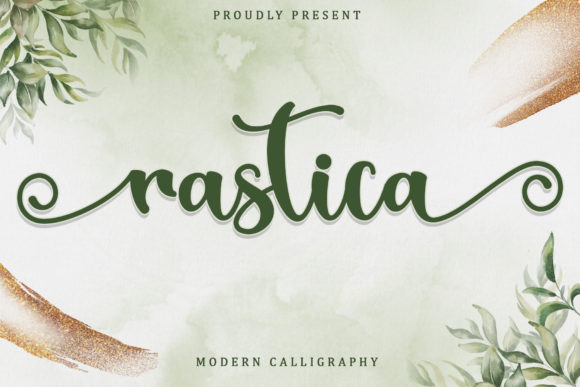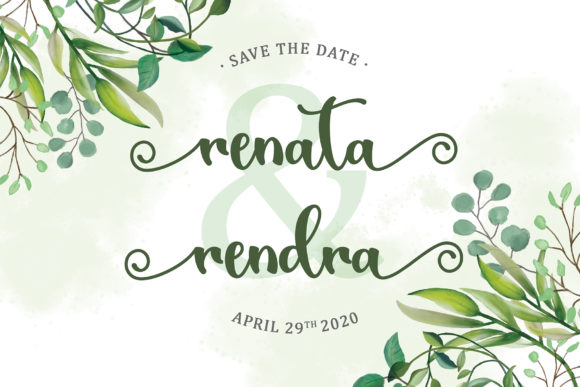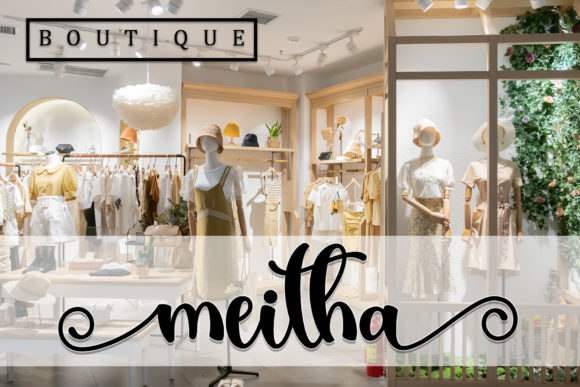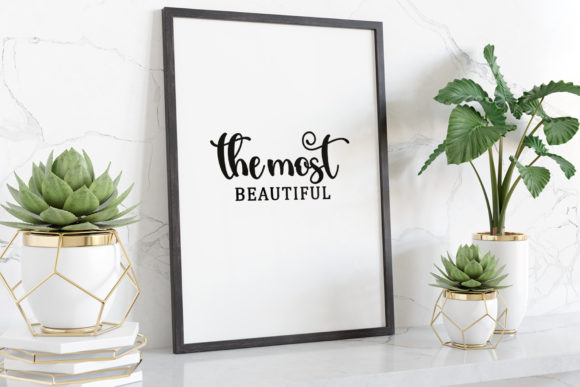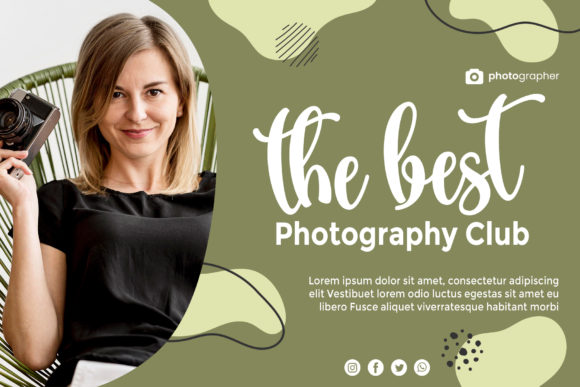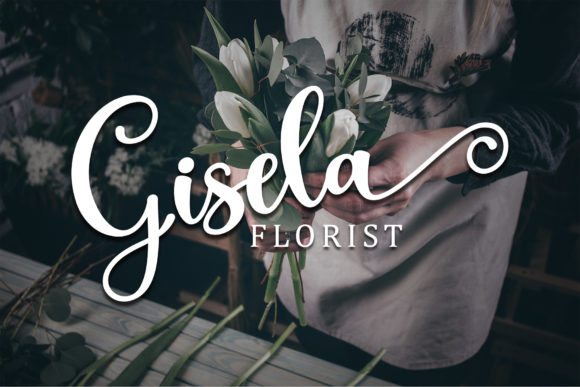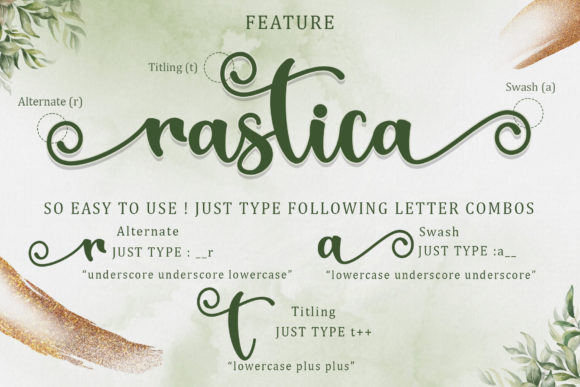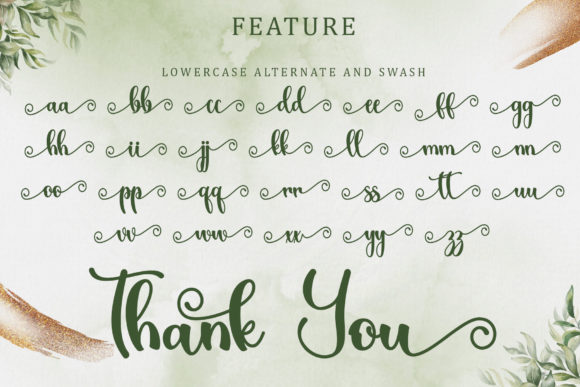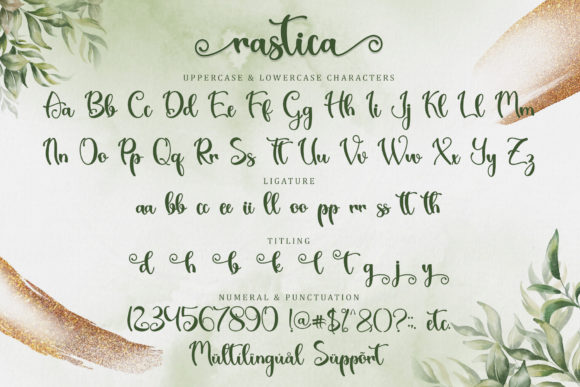
Rastica Font
About Rastica Font
Rastica is a font that embodies modernity and a delightful whimsical charm in its handwritten style. Its uniqueness lies in its perfect balance, with letters that are neither too thin nor too thick, resulting in a truly harmonious and varied design. Created with the intention of enhancing the beauty of your projects, Rastica is a font that promises to captivate and delight.
The playful and whimsical nature of Rastica makes it a fantastic choice for a wide range of design projects. Whether it’s for branding, packaging, social media graphics, or any creative endeavor, this font adds a touch of joy and lightheartedness that draws the attention of your audience.
With PUA encoding, Rastica unlocks a treasure trove of creative possibilities. Accessing all the glyphs and swashes is effortless, allowing you to explore a plethora of design variations and create a personalized touch that perfectly aligns with your creative vision.
The versatility of Rastica is evident in its adaptability to various styles and themes. It effortlessly complements both modern and playful designs, providing the perfect canvas for your imagination to run wild.
Embrace the magic of Rastica and experience how it enhances the beauty of your projects with a touch of whimsy and contemporary flair. Its balanced and varied letterforms create a visual symphony that makes your designs truly standout.
Discover the joy of creating with Rastica as your trusted companion, infusing your projects with an air of delight and creativity. Let its modern and whimsical charm be the guiding force in crafting designs that evoke smiles and warm the hearts of your audience.
Fall in love with Rastica and watch as it brings a sense of enchantment and wonder to your creative endeavors. Embrace its playfulness and versatility, and let it be the font that adds that extra spark of joy and creativity to your designs. Rastica is the key to transforming your projects into delightful masterpieces that leave a lasting impression.